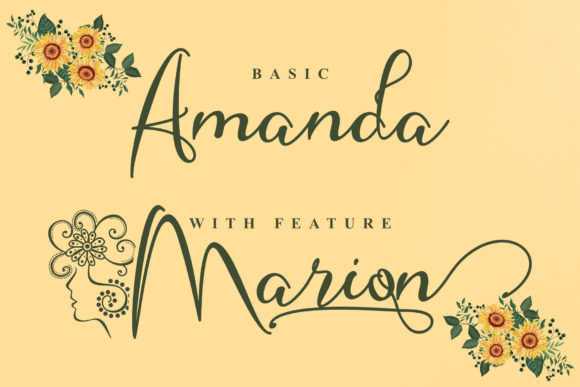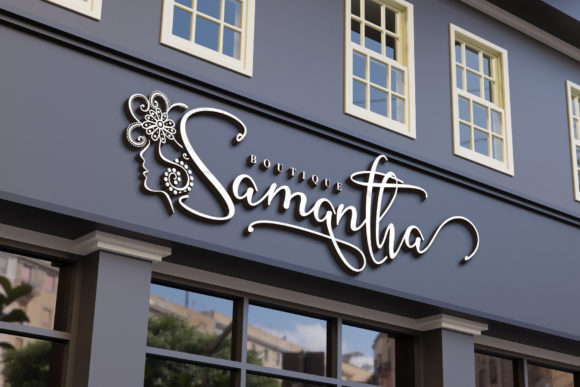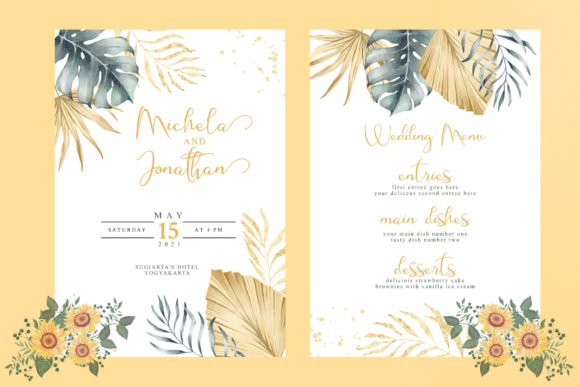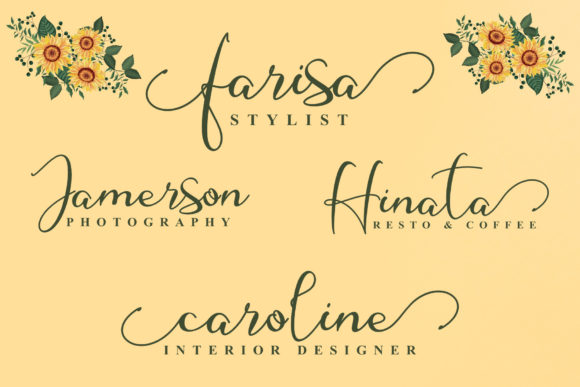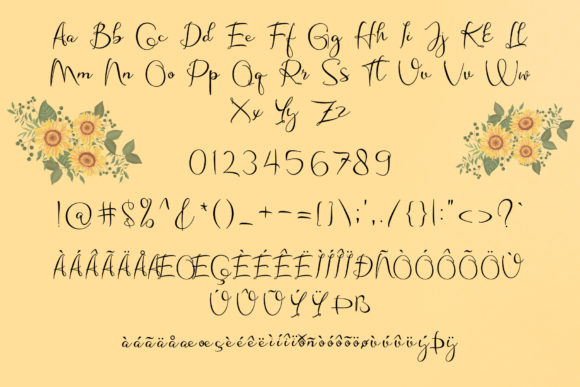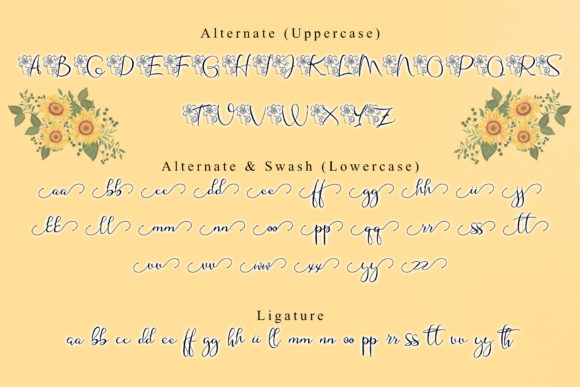
Introduction to Shine Himawari Font Font
Fonts play a crucial role in design, and the Shine Himawari Font font is a typeface that brings both character and versatility to any project. Whether you’re working on a branding project, a website, or a print design, the Shine Himawari Font font offers a unique style that can elevate your work.
Shine Himawari is a romantic, beautiful and light script font.
It can be used for each of your favorite creations, such as wedding invitation, birthday cards, thank you cards, or pretty much any design that requires a customized touch This font is PUA encoded, which means you can access all of the glyphs and swashes with ease.
Key Features of Shine Himawari Font Font
Why Choose Shine Himawari Font Font?
The Shine Himawari Font font is more than just a typeface – it’s a design tool that helps you communicate your message with style and clarity. Its unique character set and versatile design make it suitable for a wide range of applications, from elegant invitations to bold headlines.
With its carefully crafted letterforms and balanced proportions, the Shine Himawari Font font ensures readability and visual appeal across all mediums.
What makes Shine Himawari Font font special?
The Shine Himawari Font font stands out with its unique design, exceptional readability, and versatility across various design applications.